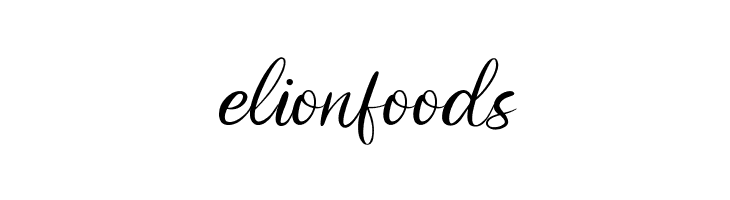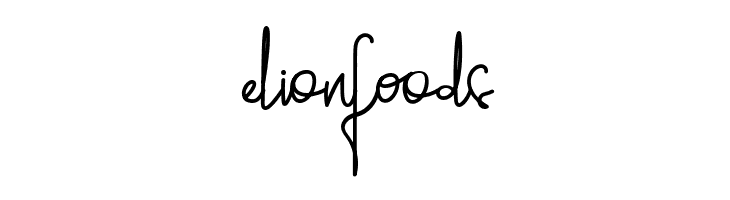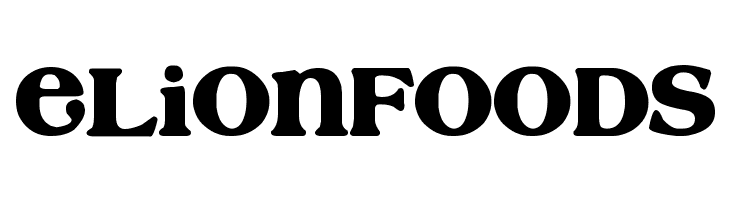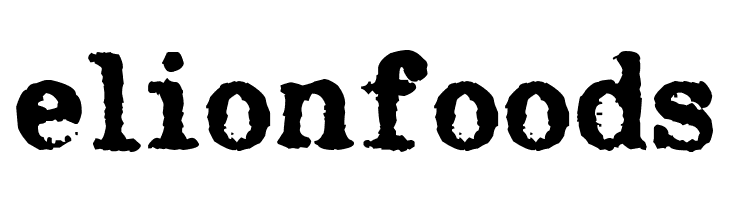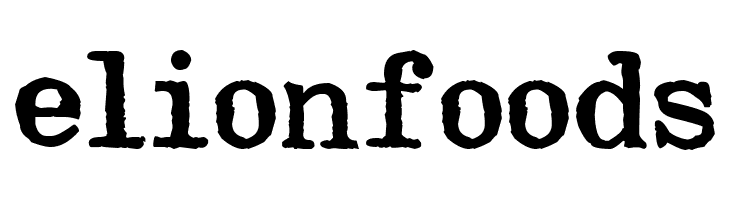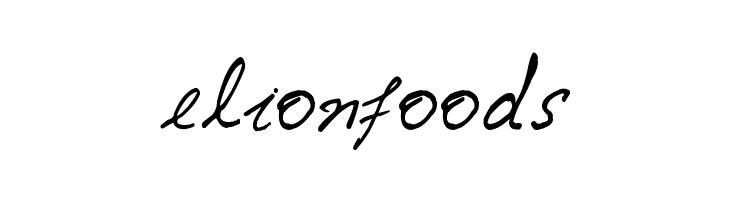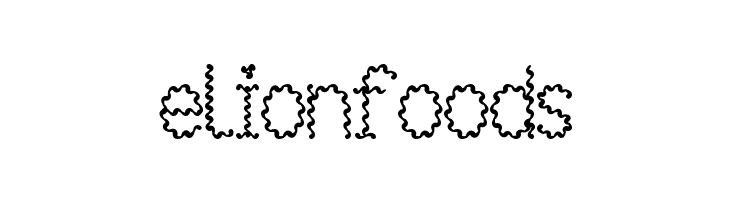
( Vlad Viperov )
A playful, wavy font with zigzag lines creating a dynamic and decorative style.
( Fonts by site.xavier.edu/polt/typewriters/ - Richard Polt )
A rugged, distressed font with a vintage, typewriter-like appearance.
( Fonts by site.xavier.edu/polt/typewriters/ - Richard Polt )
A bold, textured serif font with a vintage yet modern appeal.
( Cre8or Artwork - Lukas Kohler )
A bold, playful serif font with thick, rounded serifs and strong character presence.
An elegant, flowing script font with intricate loops and modern flair.
( Bhavesh Shaha )
A dynamic, cursive handwritten font with fluid strokes and a slanted style.
( Fonts by Caitlyn Signature )
An artistic script font with elongated, flowing strokes and a handwritten appearance.